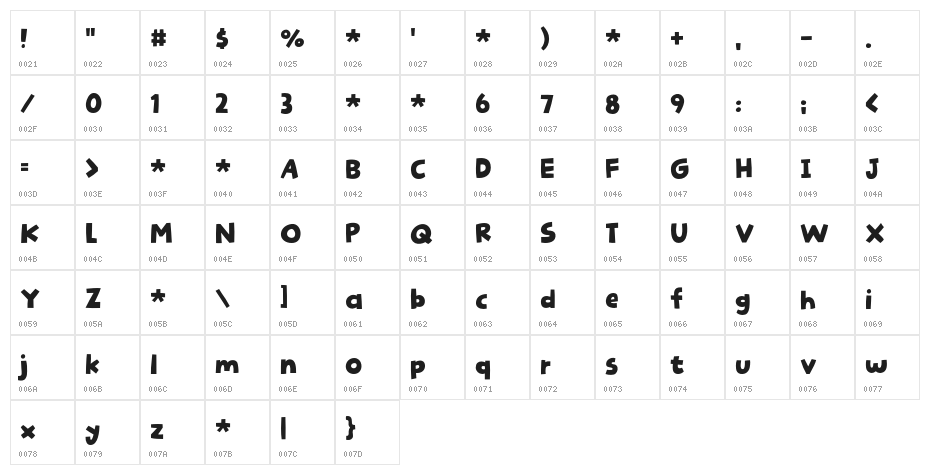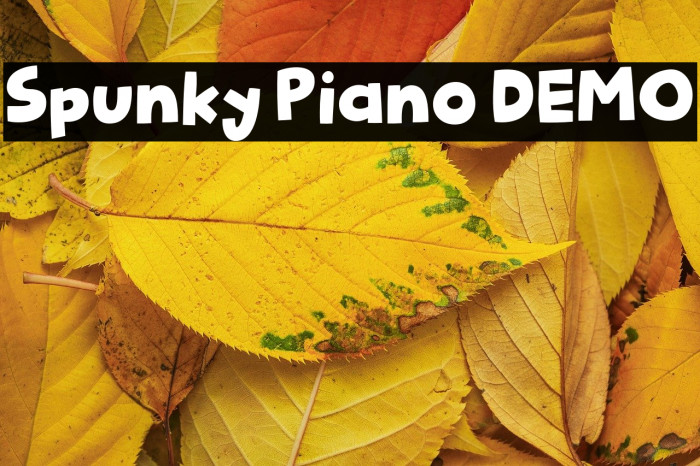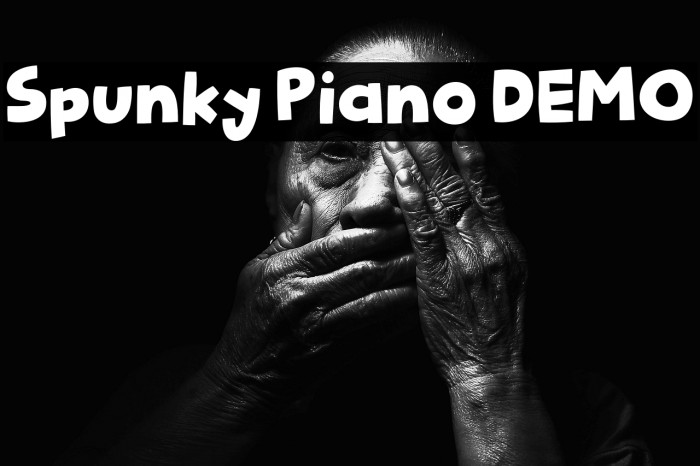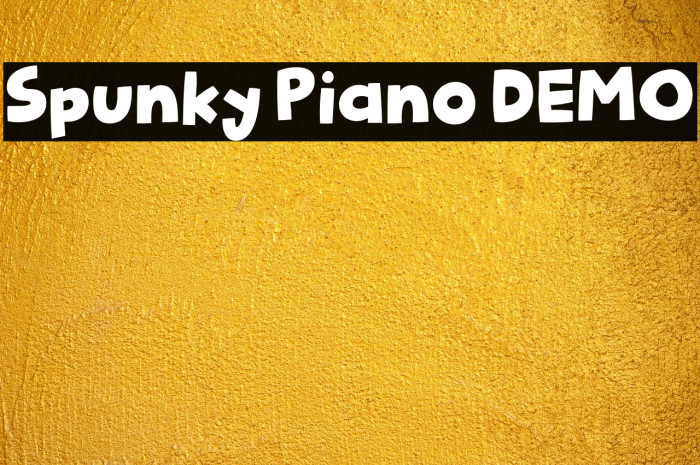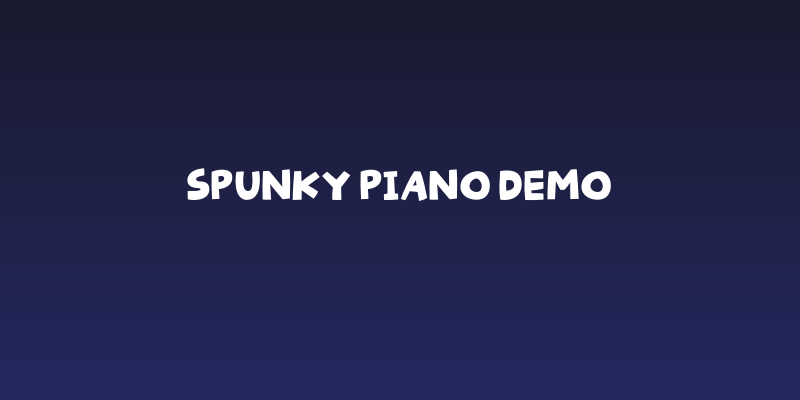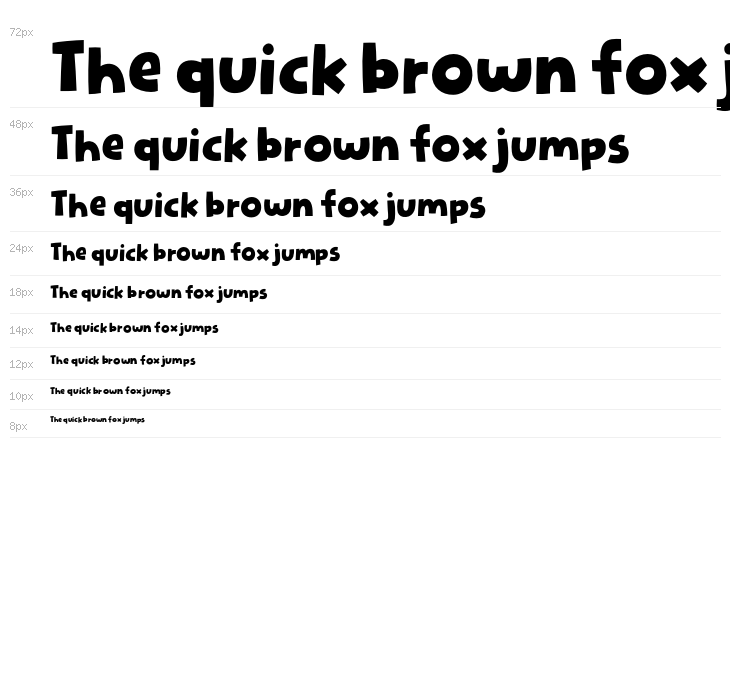
Spunky Piano DEMO Font
Spunky Piano DEMO Description
This playful and bold font exudes a lively and energetic vibe, characterized by its thick, rounded strokes and slightly irregular shapes. The letters have a whimsical, hand-drawn appearance, making them perfect for designs that aim to capture attention and convey a sense of fun. The uppercase and lowercase letters maintain a consistent style, with a slight tilt that adds to the dynamic feel. The numbers and special characters are equally bold and expressive, ensuring a cohesive look across all text elements.